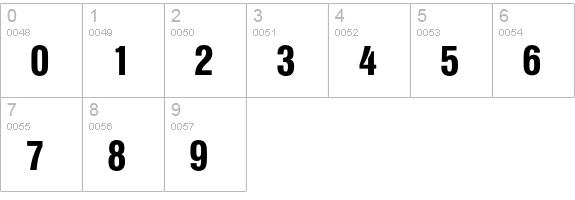
Olympia-BoldCond is a striking and versatile typeface that exudes power and elegance. Its bold condensed design makes it perfect for headlines, posters, and branding projects that require a strong and impactful visual presence. The clean lines and sharp angles of Olympia-BoldCond give it a modern and sophisticated look that commands attention. What makes Olympia-BoldCond even more appealing is that it is available for free download at FontsMarket.com. This means that you can easily access this high-quality font without any cost, making it a valuable addition to your design toolkit. Whether you are a professional graphic designer or a hobbyist looking to enhance your projects, Olympia-BoldCond offers a bold and stylish option that is both visually striking and easy to use. Don't miss out on the opportunity to elevate your designs with the impressive Olympia-BoldCond font, now freely available for download at FontsMarket.com.